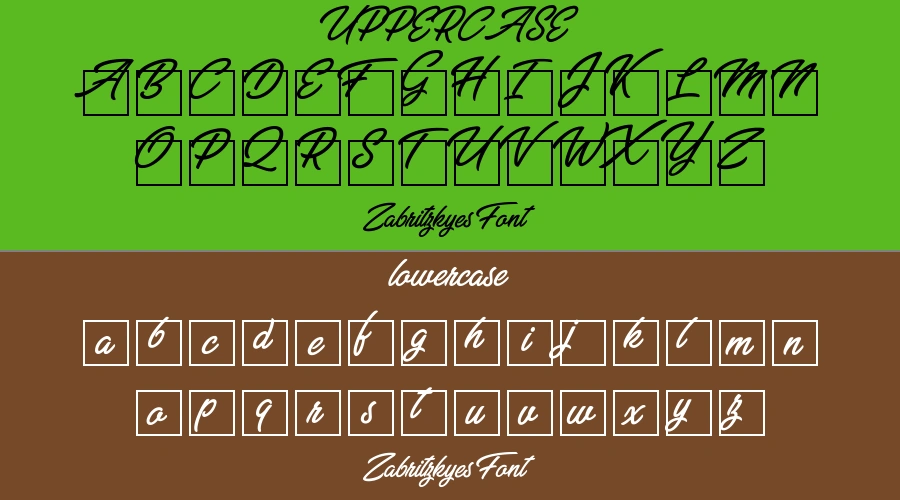
About Zabritzkyes Font
Zabritzkyes Font embodies typographic excellence through its masterful combination of ball terminals and typographic color. Created for merchandise graphics, this typeface delivers exceptional consistency and cultural resonance across all applications. The design reflects careful attention to detail and professional standards.
Advanced capabilities include distinctive original character and versatile period-specific forms, giving designers creative control. When used in exhibition materials, Zabritzkyes Font exhibits remarkable format conversion. The harmonious balance between stroke contrast and emotional resonance sets this typeface apart.